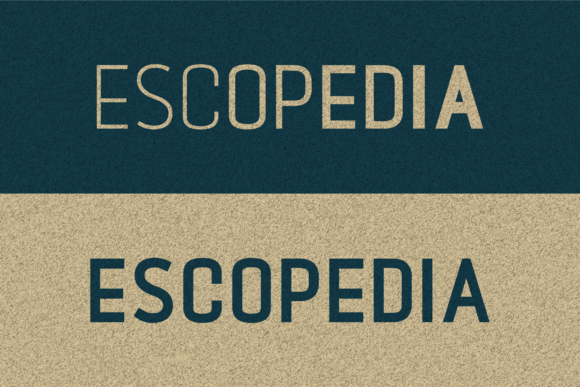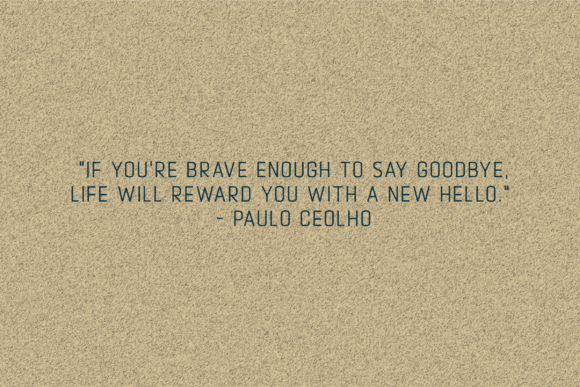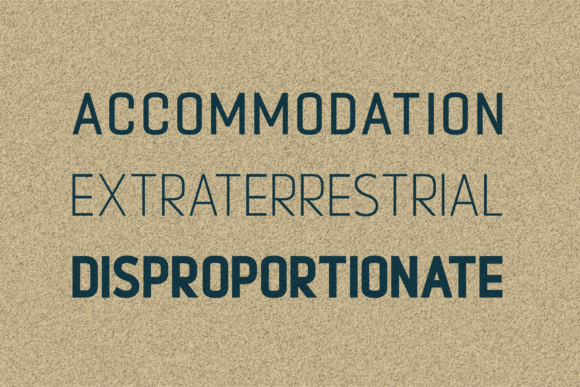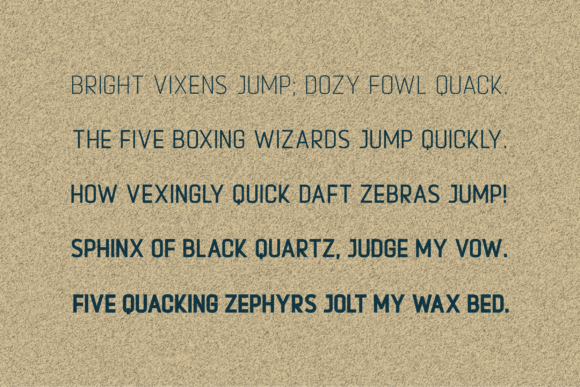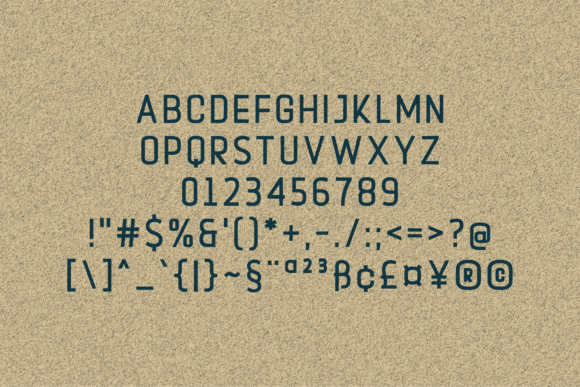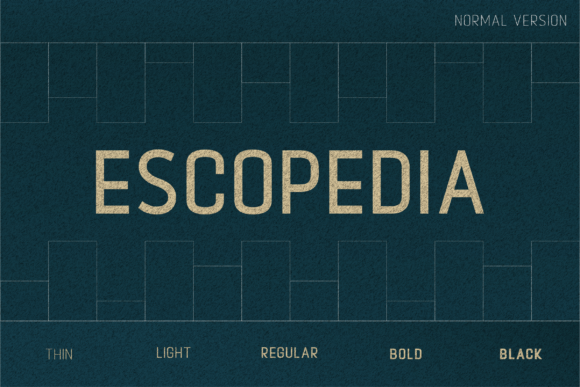
Introducing Escopedia Font: Elevate Your Designs with Precision and Versatility
In the realm of typography, few fonts manage to strike a balance between elegance, versatility, and precision. Escopedia Font, however, stands out as a beacon of excellence, offering designers and crafters a tool that can elevate their projects to new heights. Crafted with unwavering attention to detail, Escopedia boasts a collection of five distinct weights – Thin, Light, Regular, Bold, and Black. This diversity empowers you to seamlessly adapt your designs to varying contexts, from striking logos to captivating book covers.
The Power of Versatility: Five Weights for Endless Possibilities
One of the defining features of Escopedia Font is its range of weights. This versatility is not just a matter of aesthetic preference but a practical tool that allows designers to tailor their typography to the specific needs of their projects. Whether you’re working on a minimalist logo that requires a delicate touch or a book cover that demands attention-grabbing boldness, Escopedia Font has you covered.
- Thin: Ideal for subtle, sophisticated designs where a light touch is required. This weight is perfect for elegant logos, fashion magazines, or any project that calls for understated luxury.
- Light: A step up from Thin, the Light weight offers a slightly more pronounced presence, making it suitable for designs that need a bit more visibility without overpowering the overall aesthetic.
- Regular: The backbone of the Escopedia Font family, the Regular weight serves as a reliable choice for body text, articles, and general design purposes where clarity and readability are paramount.
- Bold: When you need to make a statement, the Bold weight steps in, providing the perfect balance between visibility and elegance. It’s ideal for headings, posters, and any design element that needs to stand out.
- Black: The heaviest in the family, the Black weight is your go-to for designs that demand attention. Use it for impactful headlines, dramatic effect, or anywhere you want to ensure your message cuts through.
Crafted with Attention to Detail
Escopedia Font isn’t just about variety; it’s also about quality. Crafted with meticulous attention to detail, each weight is designed to maintain its unique character while ensuring legibility and aesthetic appeal. The font’s design takes into account the nuances of typography, from the subtle curves of letters to the spacing between them, creating a harmonious reading experience.
Applications of Escopedia Font
The versatility of Escopedia Font makes it suitable for a wide range of applications:
- Branding and Logos: Create memorable logos that convey your brand’s personality with precision.
- Book Covers: Draw readers in with captivating typography that reflects the essence of your book.
- Posters and Flyers: Make a statement with bold, eye-catching text that demands attention.
- Digital Media: Enhance your website, blog, or social media graphics with elegant and readable typography.
Escopedia Font is more than just a typeface; it’s a tool for creativity and expression. Its range of weights, combined with its meticulous design, makes it an invaluable asset for designers and crafters looking to elevate their work. Whether you’re creating a brand identity, crafting a book cover, or designing digital content, Escopedia Font offers the precision, versatility, and aesthetic appeal you need to bring your vision to life.
Embrace the power of Escopedia Font in your next project and discover how this meticulously crafted typeface can help you achieve your design goals with elegance and precision.